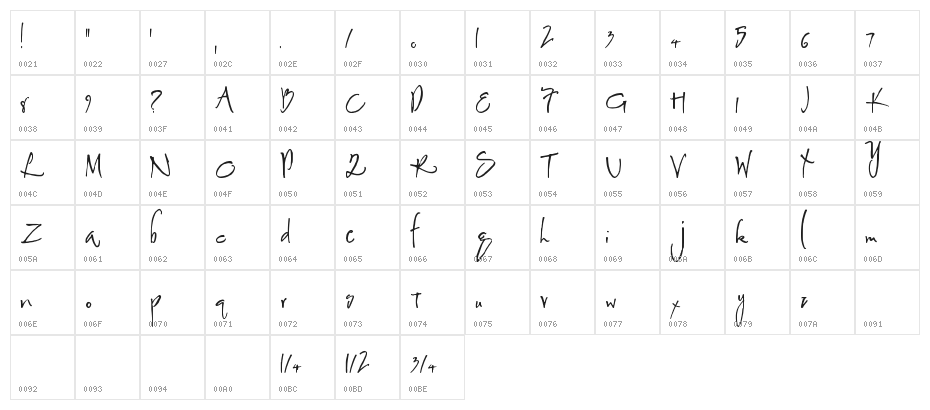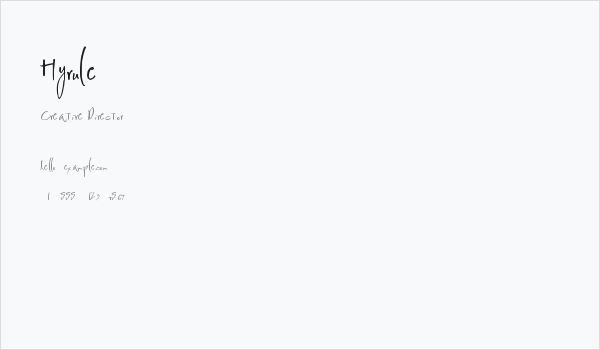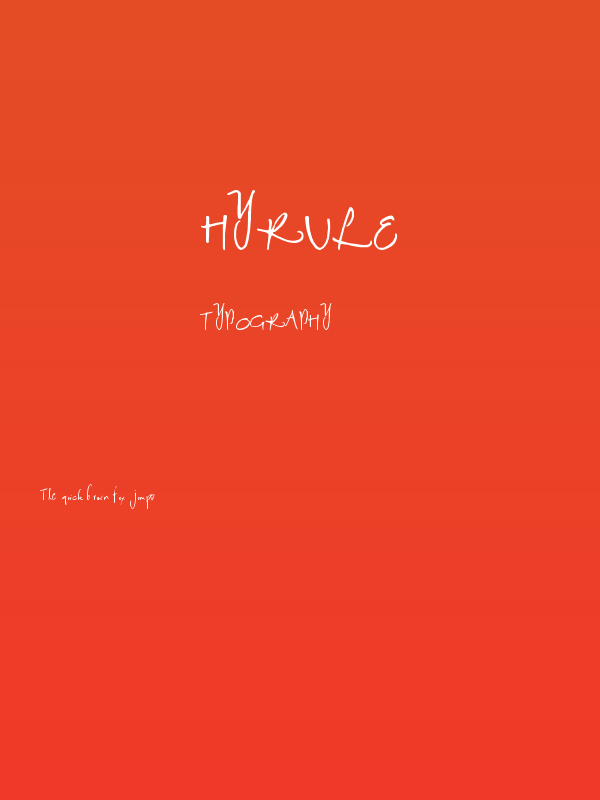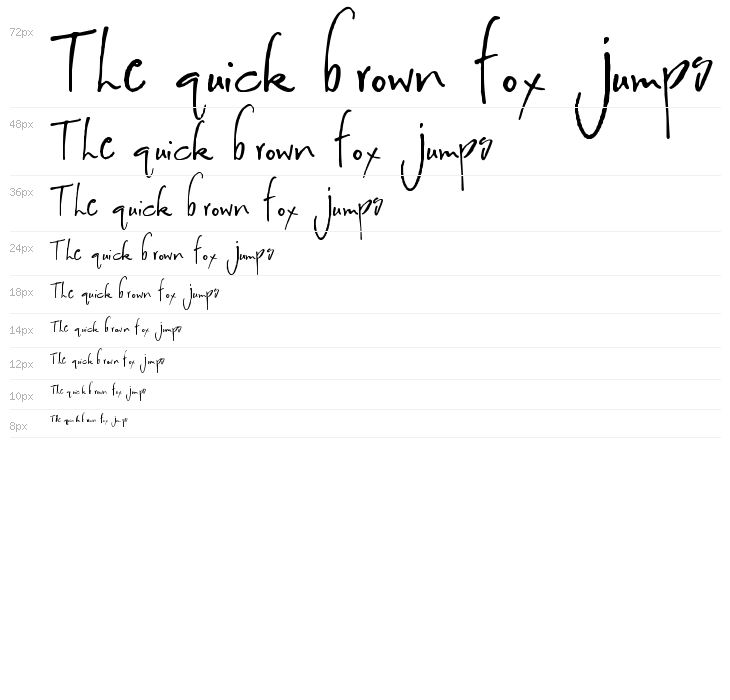
Hyrule Font
Hyrule Description
This font exudes a playful and dynamic handwritten style, characterized by its fluid and spontaneous strokes. The uppercase letters are bold and expressive, with varying line thickness that adds a sense of movement and energy. The lowercase letters maintain a consistent flow, complementing the uppercase with their slightly more restrained yet equally lively appearance. Numbers and special characters follow the same energetic and informal style, making the font versatile for creative projects. The overall impression is one of creativity and personal touch, ideal for designs that require a human element.